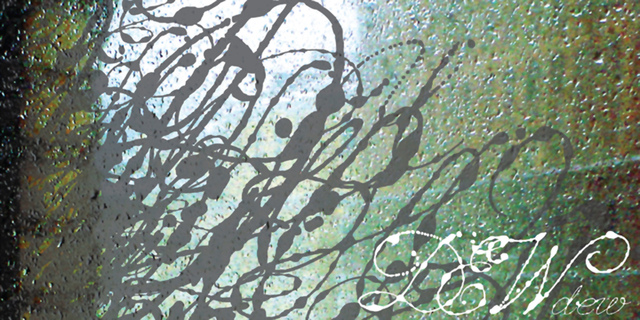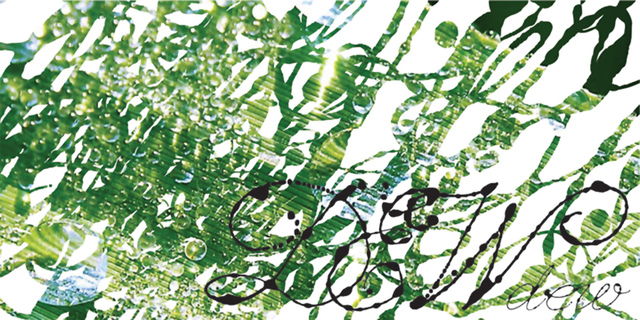
Dew (1 font)
About DewDew is a script font with blobs on stems that according to the author's imagination resemble dew drops on caules. It gives an impression of fragrance and freshness and thus can be used for informal headings and short advertizing texts for perfumes and cosmetics. The font was developed by Ekaterina Pulenko and released by ParaType in 2009.